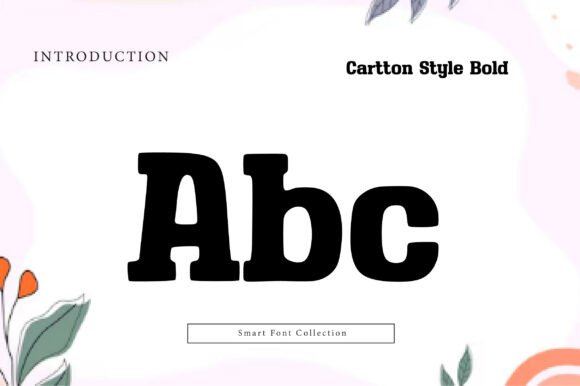
The Ultimate Font for a Bold Statement
Remember that moment when you first saw a comic book or a cartoon and felt an instant rush of excitement? The vibrant colors, the playful characters, and the bold typography all combined to create an unforgettable experience. That’s exactly what the Cartton Style Bold Font is designed to evoke – a sense of fun, energy, and playfulness that demands attention.
As part of the Smart Font Collection, this typeface features heavy, rounded letterforms that mimic the exaggerated proportions of classic animation and street-style graphics. With its chunky, “bubbly” structure, the Cartton Style Bold Font is perfect for headlines that need to “pop” with personality and youthful spirit. Whether you’re designing for children’s branding, toy packaging, or high-impact social media graphics, this typeface is a powerhouse that’s sure to make your designs stand out.
Cartton Style Bold Font Features
- Font Family: Cartton Style Bold Font
- Unique Characteristics: Distinctive bold and rounded edges, ideal for headings and titles; supports ligatures and contextual alternates for a more refined look
Cartton Style Bold Font Review
When I first laid eyes on the Cartton Style Bold Font, I was immediately drawn to its unique blend of vintage and modern flair. ✨ The font’s bold lines and geometric shapes give it a distinctive look that’s sure to grab attention. I appreciate how the designer has carefully balanced the font’s contrasting elements to create a cohesive and visually appealing whole.
One of the things that works particularly well in the Cartton Style Bold Font is its versatility. ✨ Whether you’re using it for headings, titles, or body text, the font adapts seamlessly to its surroundings. I’ve found it to be a great choice for anything from logos and branding to digital products and publications.
While the Cartton Style Bold Font has many strengths, there are a few areas where it falls short. ⚠️ For one, the font’s limited character set can make it difficult to use in certain contexts. Additionally, the font’s bold style can sometimes be overwhelming, particularly in large blocks of text.
Overall, I think the Cartton Style Bold Font is a solid choice for designers looking for a unique and eye-catching font. While it may have its limitations, the font’s many strengths and versatility make it a worthwhile addition to any design toolkit. With a bit of careful consideration and planning, the Cartton Style Bold Font can be a real showstopper.
- Unique blend of vintage and modern flair
- Balanced and visually appealing design
- Highly versatile and adaptable
- Great for headings, titles, and body text
- Can be overwhelming in large blocks of text
- Limited character set
Cartoon Style Bold Font: A Practical Application Guide
Tips for Getting the Most Out of Cartoon Style Bold Font
Use Cartoon Style Bold Font for headings and titles to add a playful touch to your designs. Experiment with different font sizes and colors to create a visually appealing contrast.
Cartoon Style Bold Font is perfect for children’s books, cartoon animations, and advertising campaigns targeting a younger audience. It’s also great for adding a fun and playful touch to educational materials and presentations.
Alternatives to Cartton Style Bold Font
Montserrat is a sans-serif font designed for digital use. It’s a popular alternative to Cartton Style Bold Font due to its clean lines and geometric shapes. Montserrat is ideal for use in headings and titles where a bold, modern look is desired.
Comparison to Cartton Style Bold Font: Montserrat is more geometric and modern in design, whereas Cartton Style Bold Font has a more playful, hand-drawn feel. Montserrat is also more versatile and works well in a variety of contexts.
Playfair Display is a luxurious, high-end font with a classic feel. It’s a good alternative to Cartton Style Bold Font for designers who want to add a touch of elegance and sophistication to their work. Playfair Display is ideal for use in titles and headings where a sense of grandeur is desired.